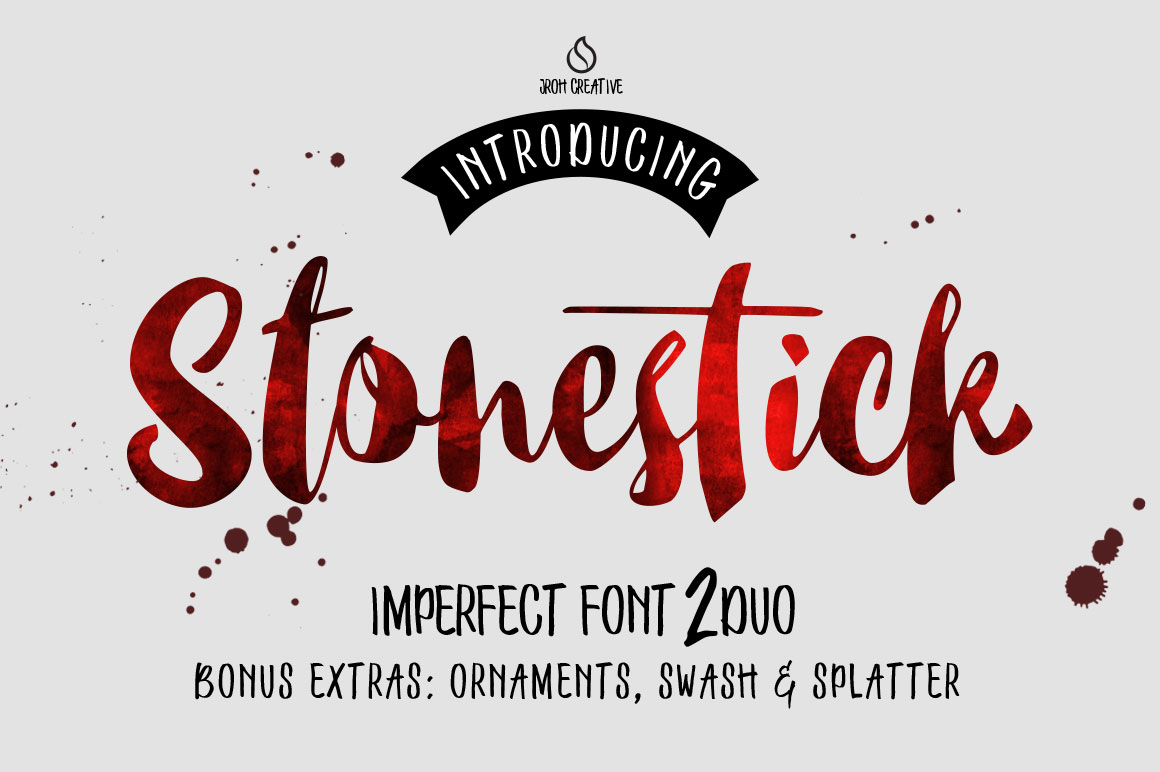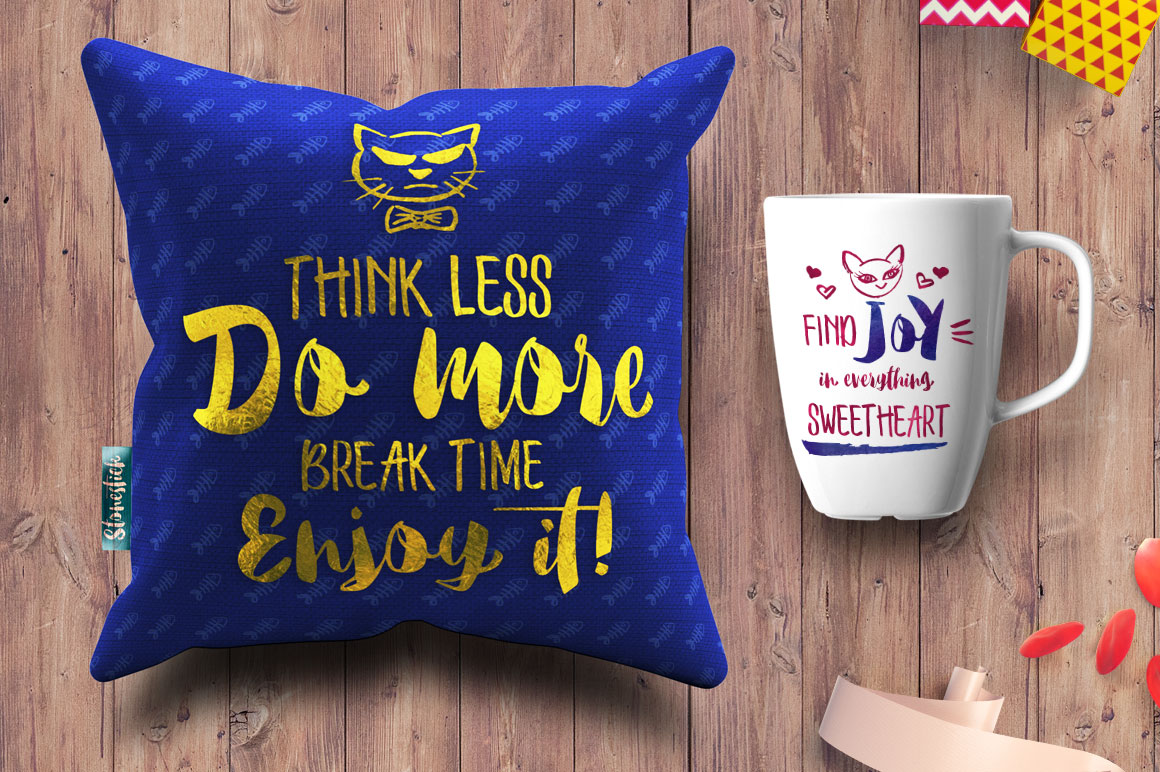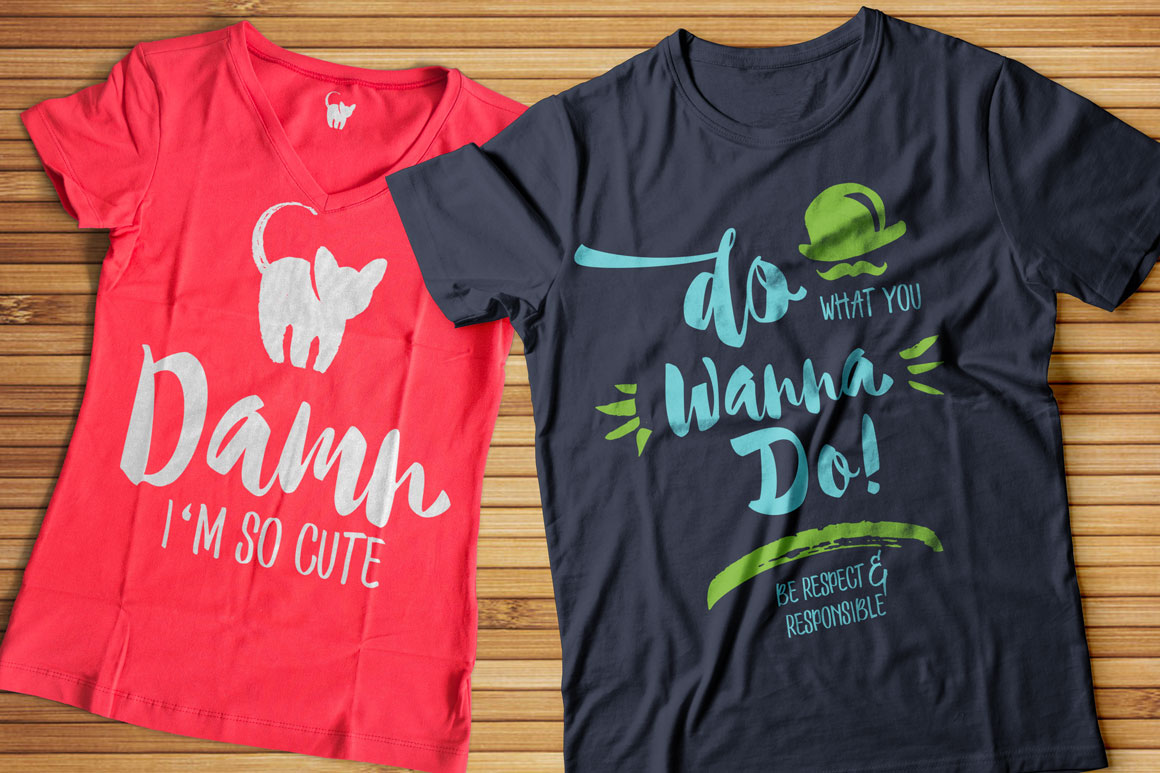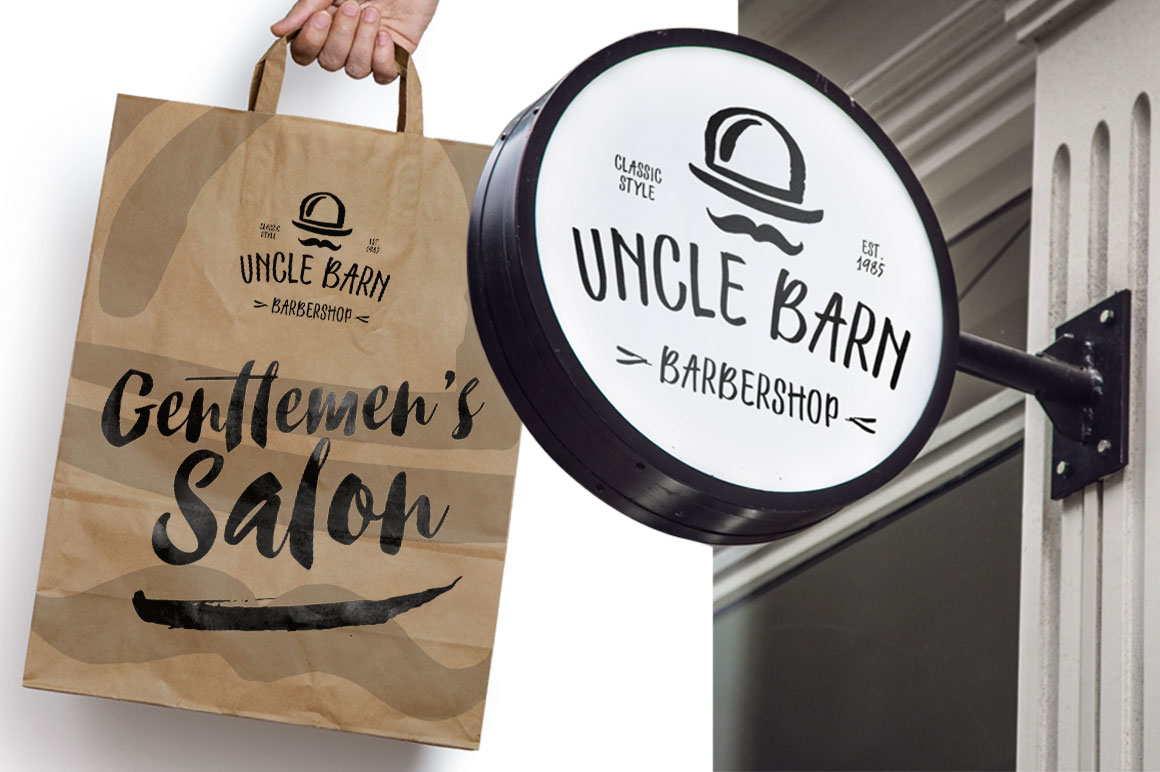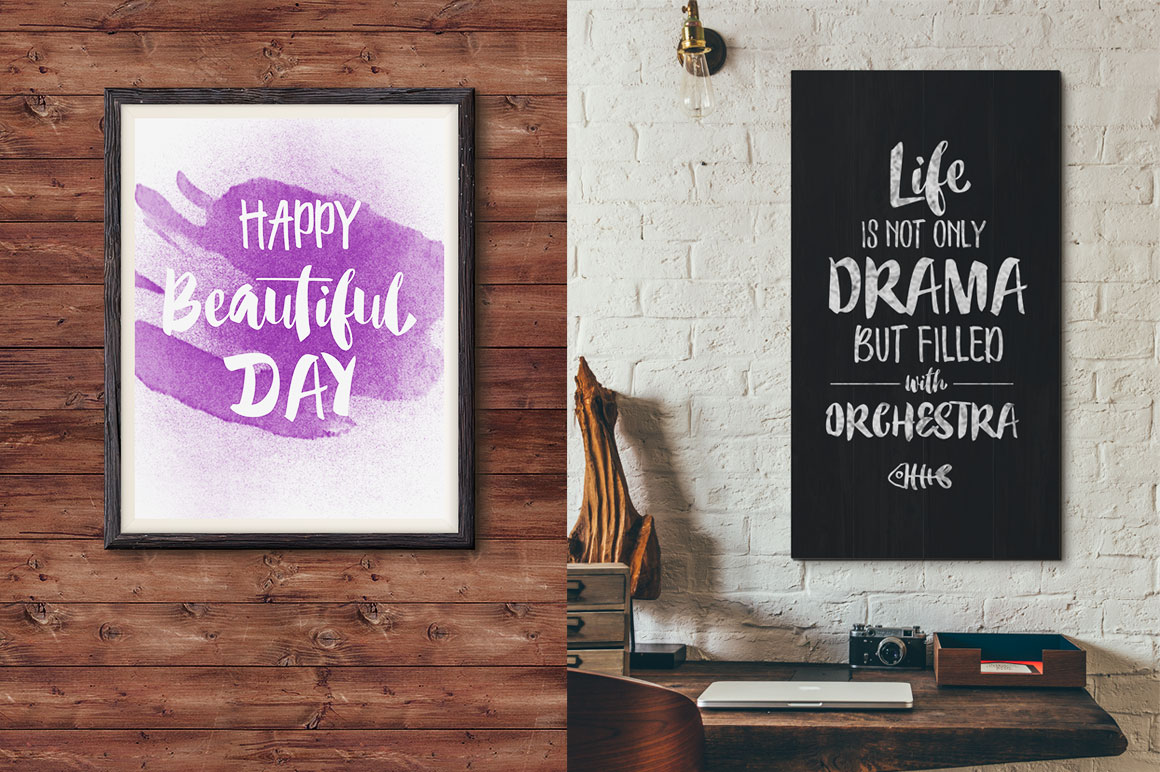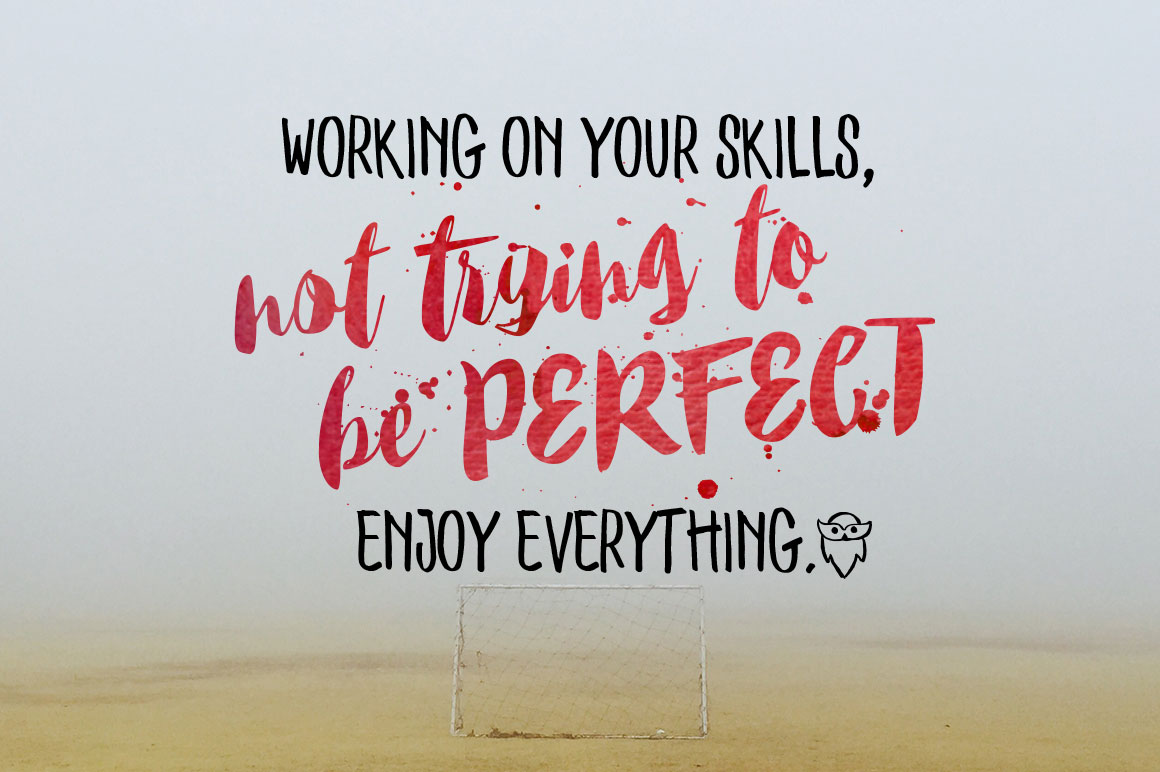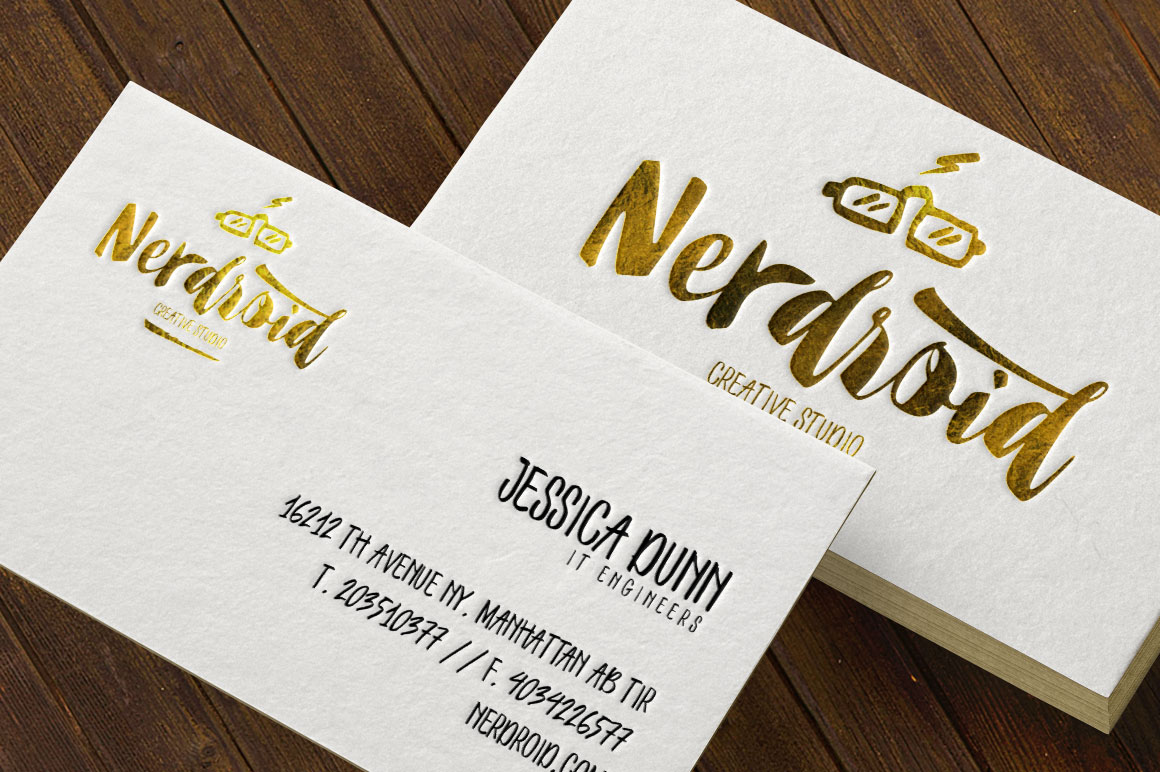
HomeScript FontsStonestick Font Script Fonts Stonestick Font FacebookXPinterestWhatsApp Stonestick Font Poster 2 Stonestick Font Poster 3 Stonestick Font Poster 4 Stonestick Font Poster 5 Stonestick Font Poster 6 Stonestick Font Poster 7 About Stonestick Font Stonestick, a beautiful hand painted font that comes with regular & caps. Also includes a bonus Ornamental font. DOWNLOAD ON CREATIVE FABRICAThis font is sold and delivered by Creative Fabrica. Font Canyon may earn a commission if you buy through this link. People also explored Alabama Font Bettani Antique Font Star Girl Font Amanitha Font Madine Style Font Highlight Font Barbassy Font Sweet Flower Font Photorealistic Table Book Mockup 339 0 TagsStonestick Font Previous articleVracter FontNext articleMoonfrost Font LEAVE A REPLY Cancel reply Comment: Please enter your comment! Name:* Please enter your name here Email:* You have entered an incorrect email address! Please enter your email address here Website: Save my name, email, and website in this browser for the next time I comment. Personal Use Free Handayani Personal Use Free Read more about this font Denisha Personal Use Free Read more about this font The Shocker Personal Use Free Read more about this font Heartburn Personal Use Free Read more about this font BLOG Transform Your Website: Elevate Your Typography with 7 Best Web Font Generators Are you ready to transform your website's typography from ordinary to extraordinary? Great! Today, we're diving into the world of web font generators, which... 5 Fonts That Will Dominate Design Trends in 2026 Exploring Font Trends Where to Buy American Fonts Online in 2024